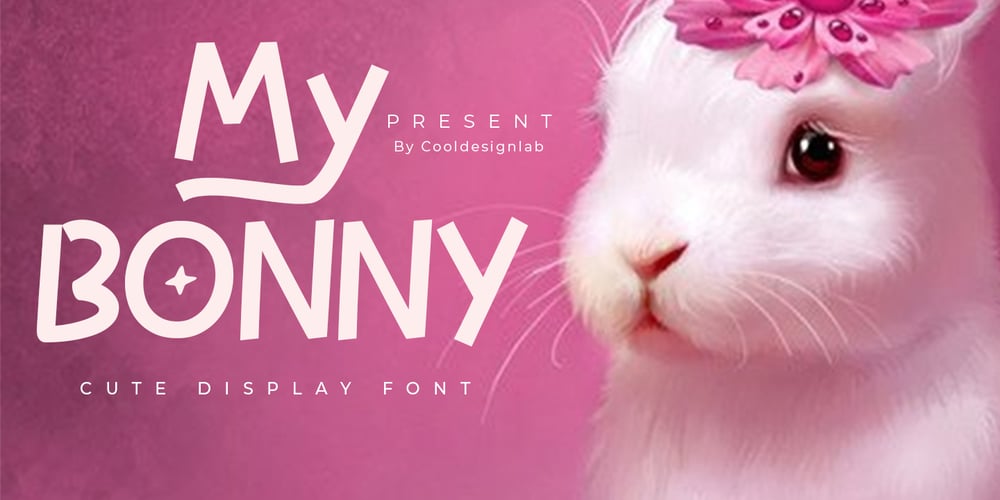
My BONNY
My BONNY font
My BONNY Font Family was designed by Kurniadi Saputra and published by Cooldesignlab. My BONNY contains 1 styles and family package options. My Bonny is a handcrafted font that has several interrelated characters. My Bonny has an opentype feature that will automatically convert each character into a ligature. so that it becomes a unique character. My Bonny has a bold yet playful style that is easy to read and apply to all design projects such as poster designs, apparel, logos, quotes, album covers, books, business cards, product designs and many more. more design projects. We made this font look cute, memorable and easy to use.